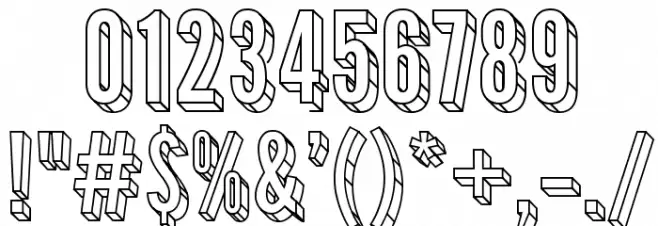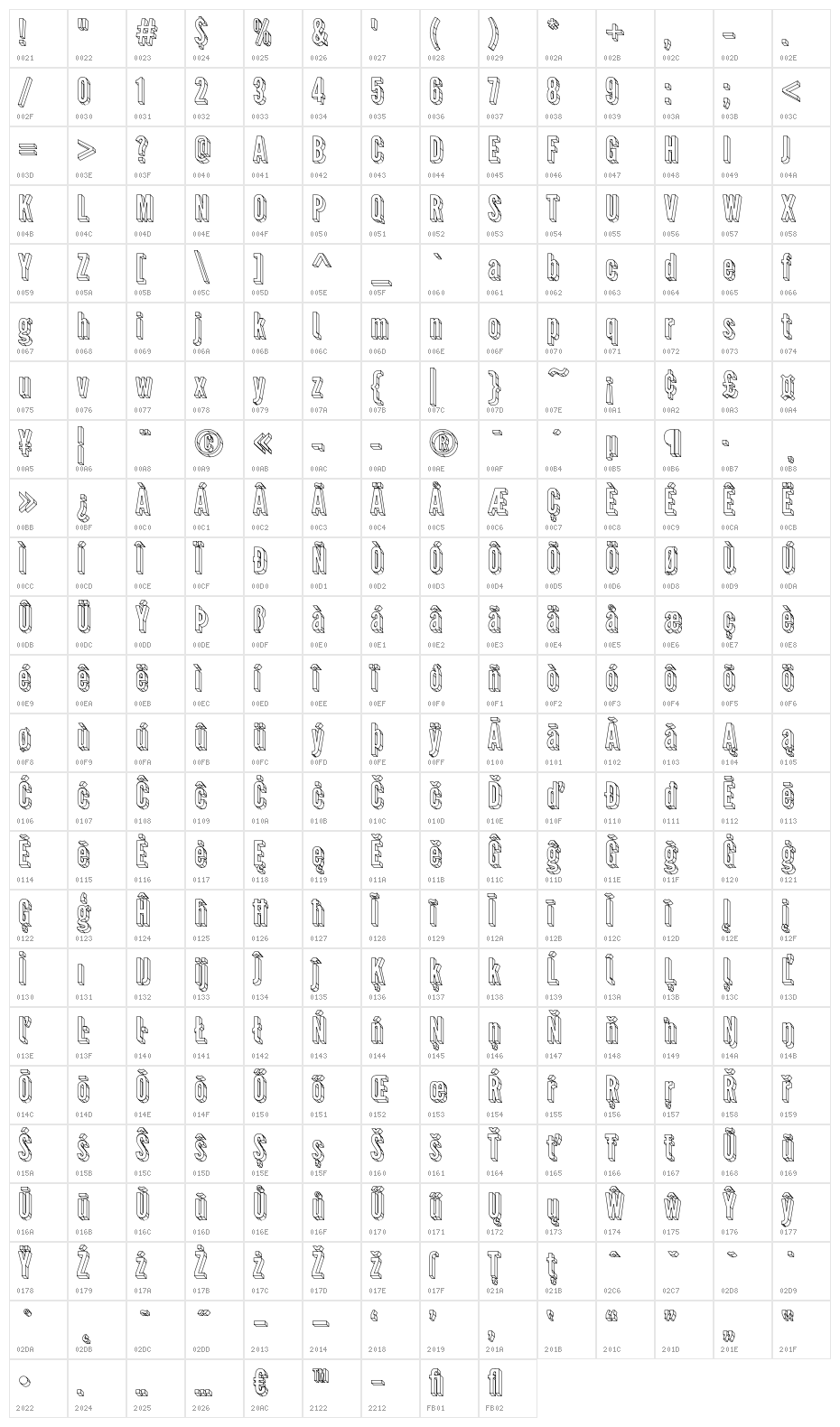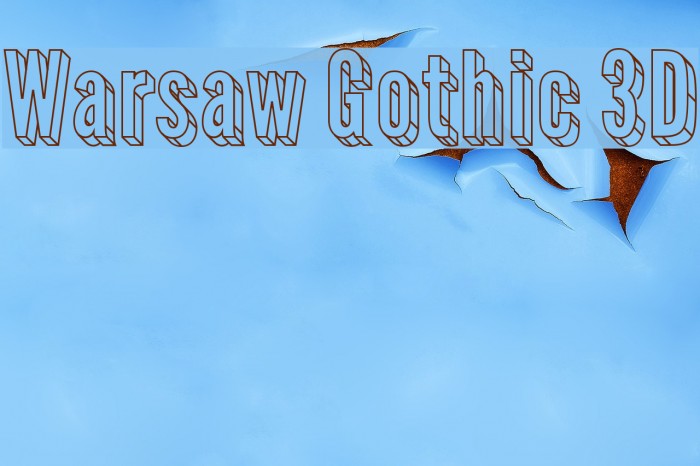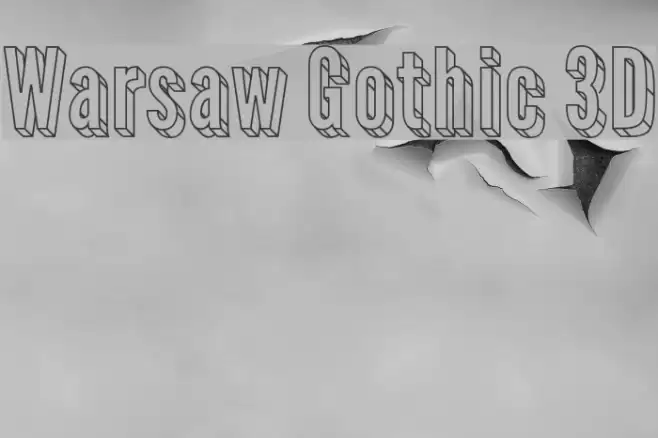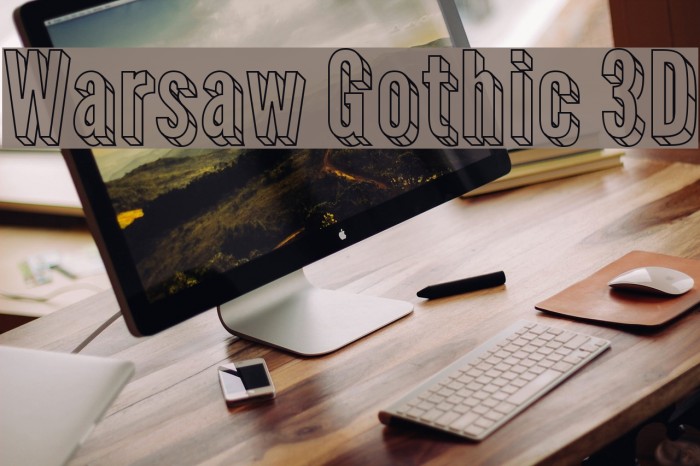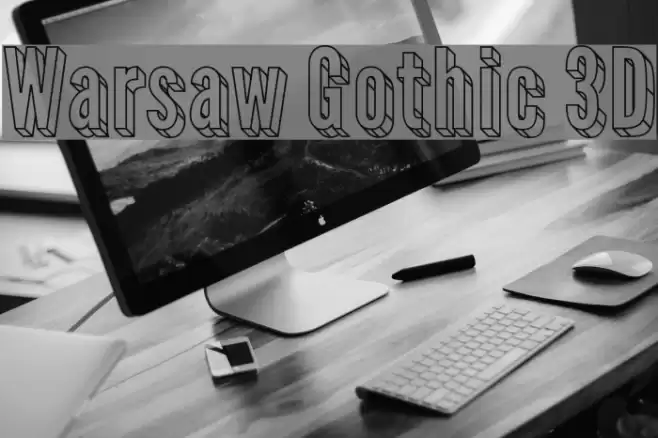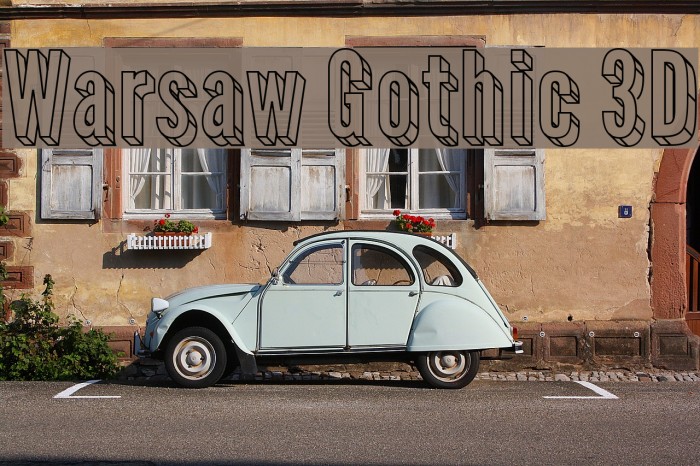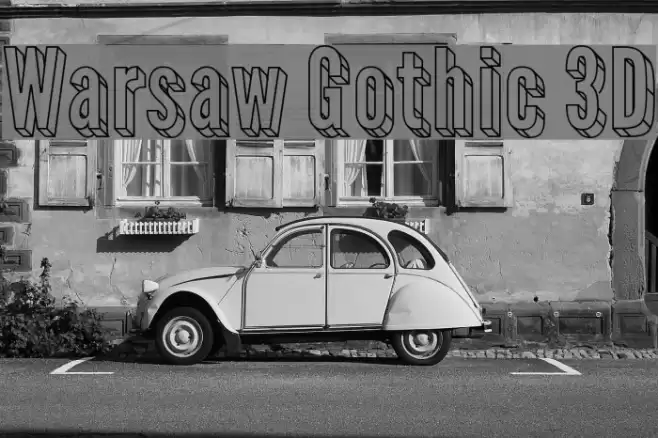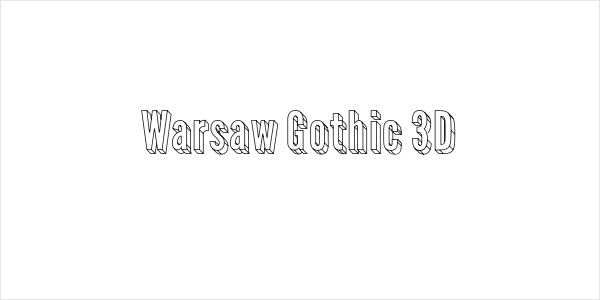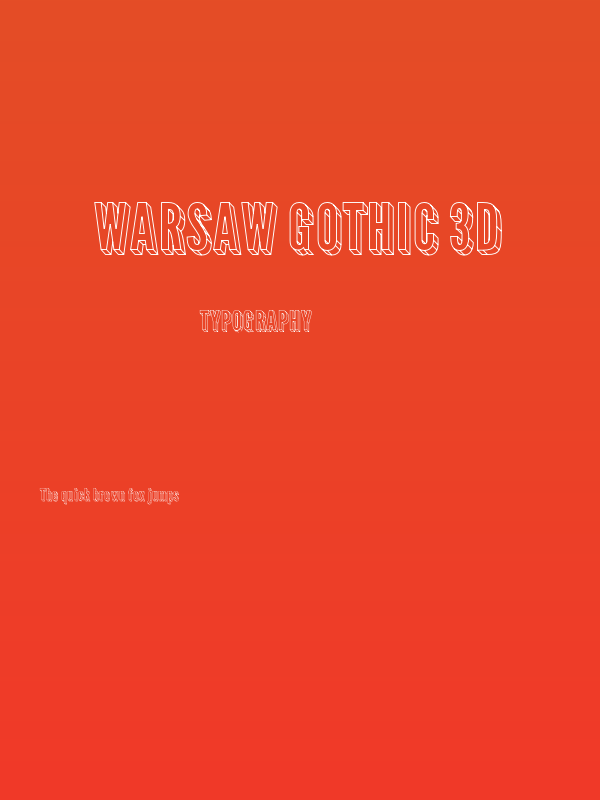
Warsaw Gothic 3D Font
Warsaw Gothic 3D Description
This font features a bold, three-dimensional design with a strong, geometric structure. The letters are outlined with a shadow effect that gives them a striking, standout appearance. The uppercase and lowercase characters maintain a consistent style, with clean lines and sharp angles that create a sense of depth and dimension. The numerals and special characters are designed to match the boldness and clarity of the alphabet, making the font versatile for various uses. Its unique 3D effect makes it ideal for eye-catching designs.
| Proposed Projects | Ideal for posters, headlines, logos, and any design requiring a bold, attention-grabbing font. |